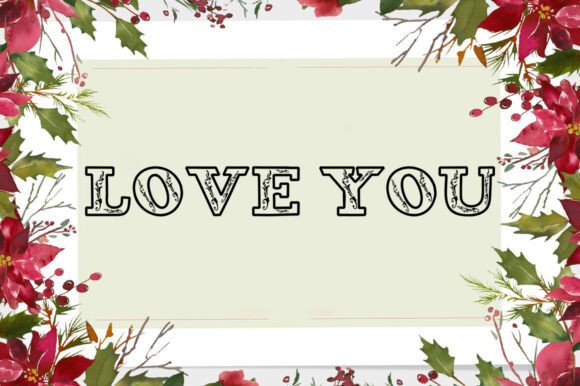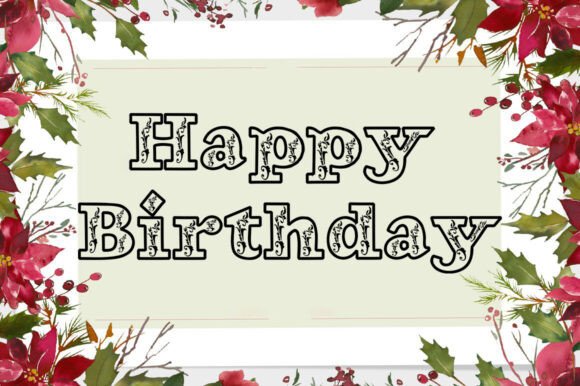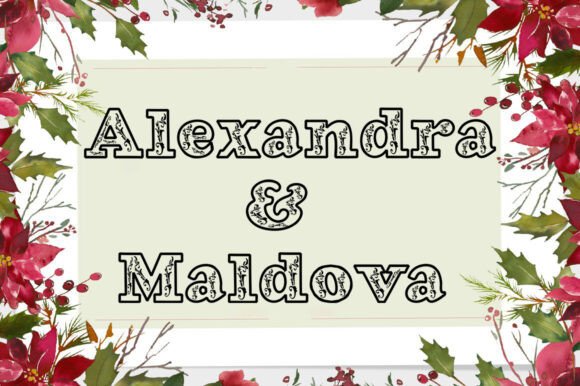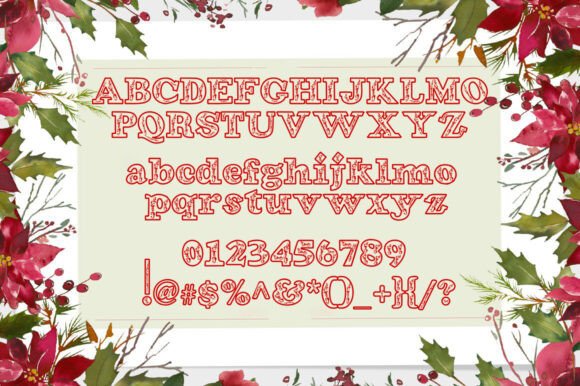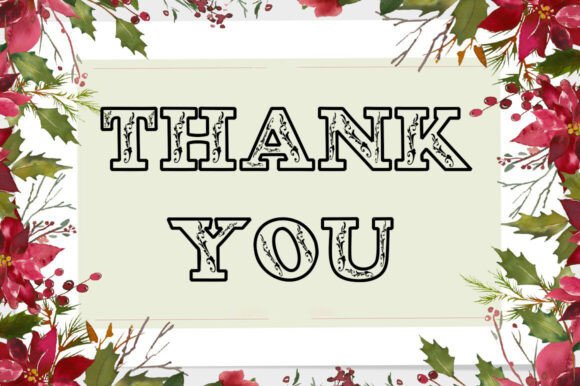
Introduction to Beauty Garden Font
As a designer, you’ve probably experienced that magical moment when the perfect font comes along and brings your creative project to life. For me, it was when I stumbled upon the enchanting Beauty Garden Font. The intricate floral patterns and bold serif structure captivated me, and I knew I had to share this treasure with fellow designers. Whether you’re working on a wedding invitation, holiday design, or branding project, this stunning font is sure to add a touch of sophistication and whimsy to your work.
What sets the Beauty Garden Font apart is its high-quality design, perfect for free download and use in a variety of creative projects. With a transparent background, this versatile font can be easily integrated into your design resource, elevating your work to new heights. As a valuable addition to any designer’s toolkit, the Beauty Garden Font is an absolute must-have for anyone seeking to create truly unique and memorable designs.
Key Features of Beauty Garden Font
- High-quality design resource with a delicate and elegant aesthetic, perfect for creative projects.
- Features a transparent background, allowing for easy customization and versatility in design.
- Designed with a mix of modern and traditional elements, making it suitable for a range of design applications.
- Includes a range of characters and glyphs, including international characters and symbols.
- Perfect for use in creative projects such as wedding invitations, garden-inspired designs, and more.
Honest Review: Beauty Garden Font
As a designer, I’m always on the lookout for high-quality design resources that can elevate my creative projects. Recently, I came across the Beauty Garden Font, and I was eager to give it a try.
Here are some of the things that work well: ✨
- High-quality typography: The font is beautifully crafted, with intricate details and a smooth, even texture.
- Transparent background: This makes it easy to use the font in a variety of creative projects, from logos to branding materials.
However, there are a few limitations: ⚠️
- Limited character set: The font only includes a limited set of characters, which may not be suitable for longer blocks of text.
- Not ideal for large text: While the font looks great in smaller sizes, it can become difficult to read at larger sizes.
Overall, I’m impressed with the Beauty Garden Font. It’s a beautiful, high-quality font that’s perfect for creative projects that require a touch of elegance and sophistication. While it has some limitations, it’s still a great resource to have in your design toolkit.